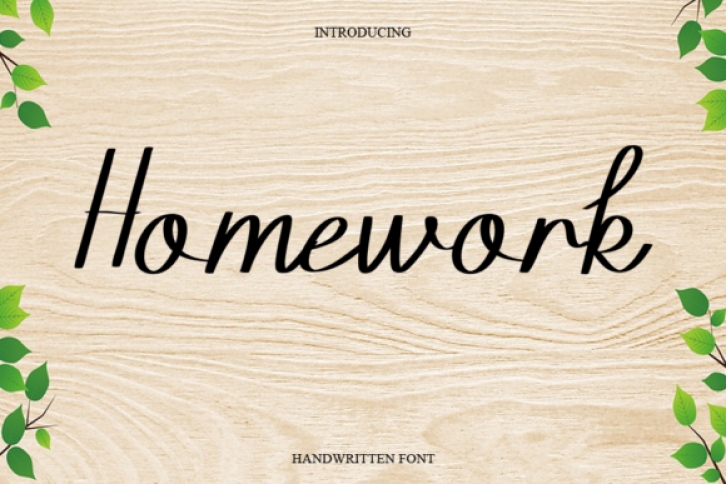
Homework is a well-rounded and flowing handwritten font. It will add a delicate and elegant touch to a variety of your creations while making them stand out and look fantastic!